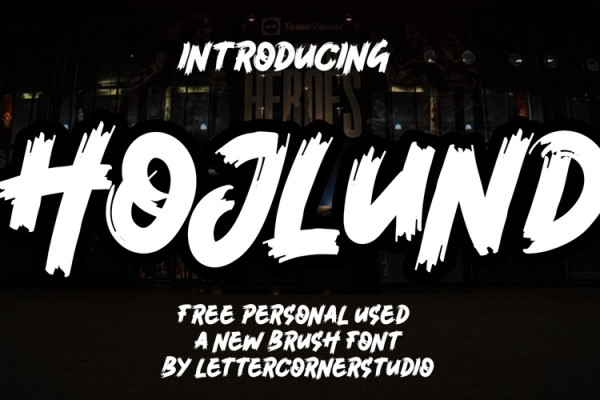
Hojlund Brush Font
Hojlund Brush Font, is a friendly, brush stroke font that looks at home in a wide range of designs! This font is a dry brush stroke script, and can give your designs an elegant yet completely modern look.